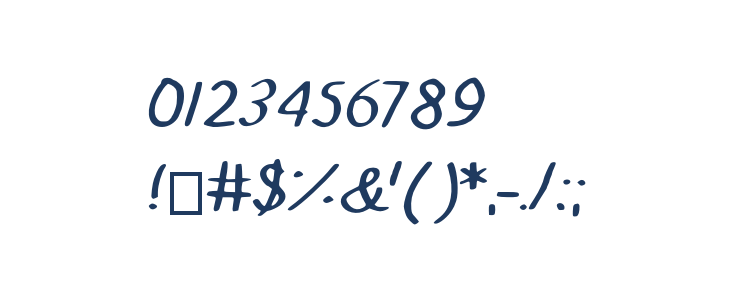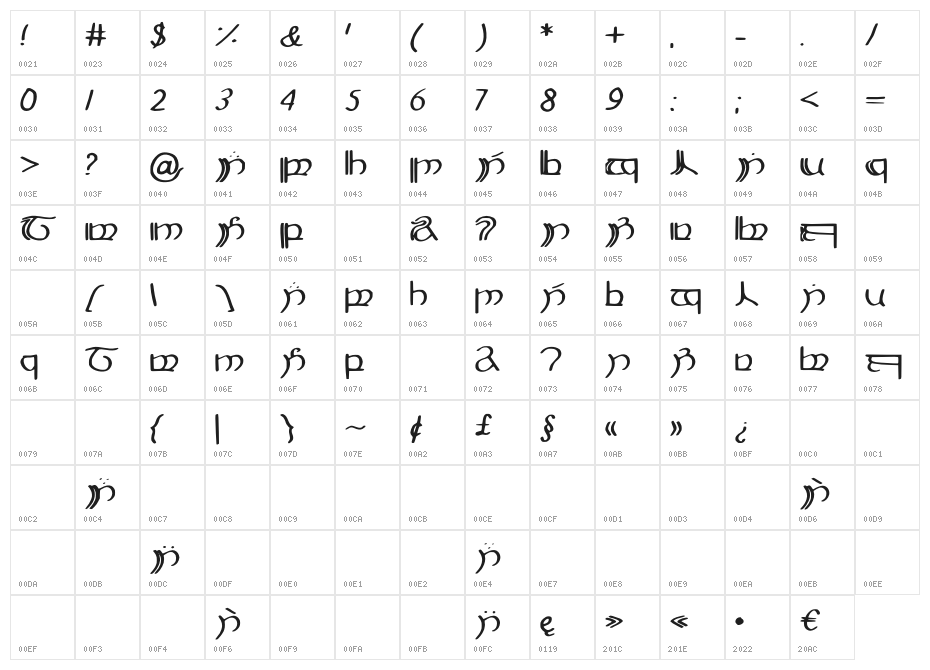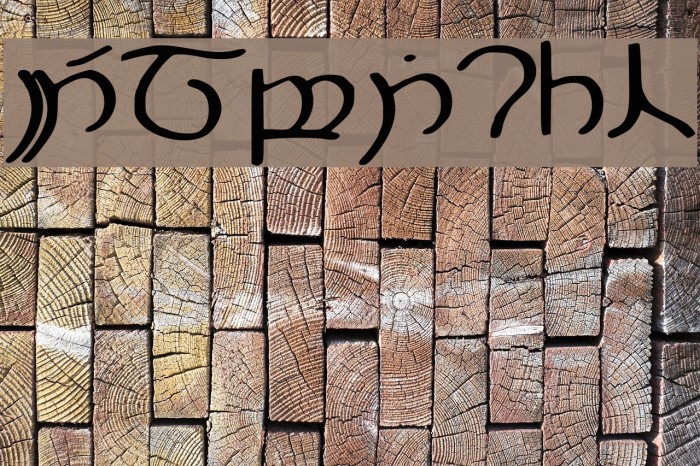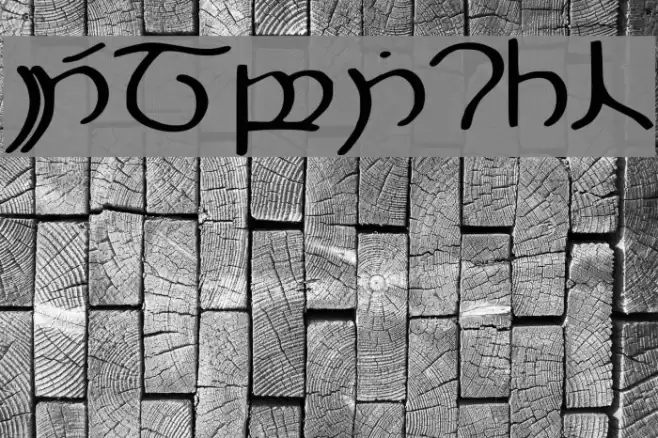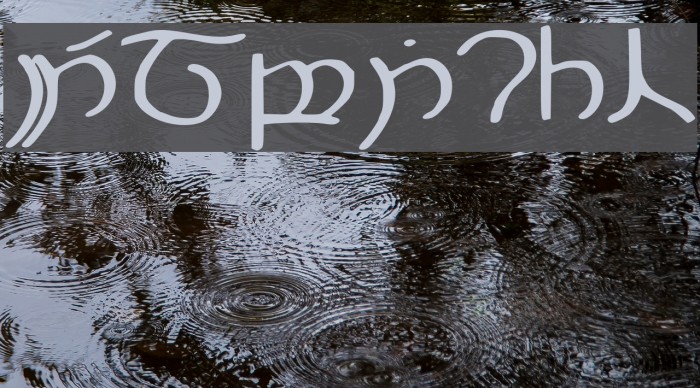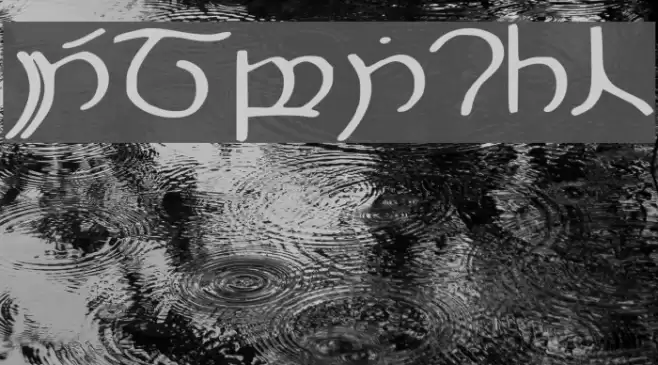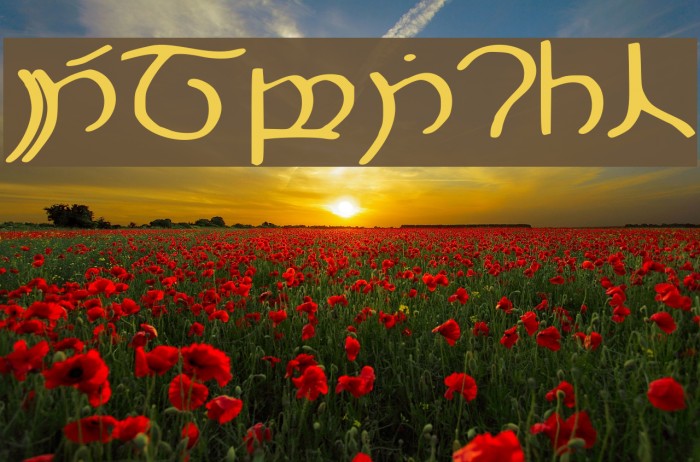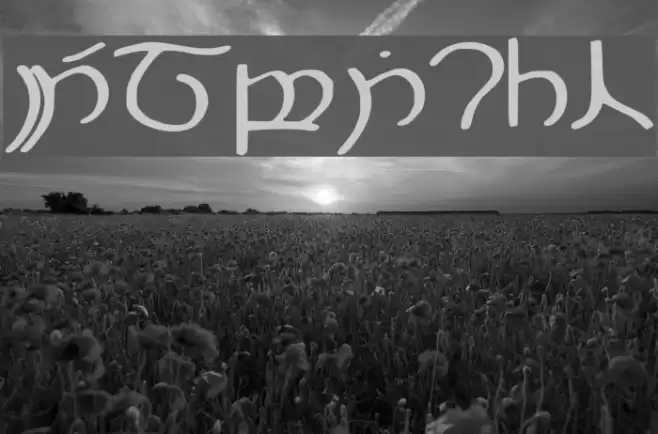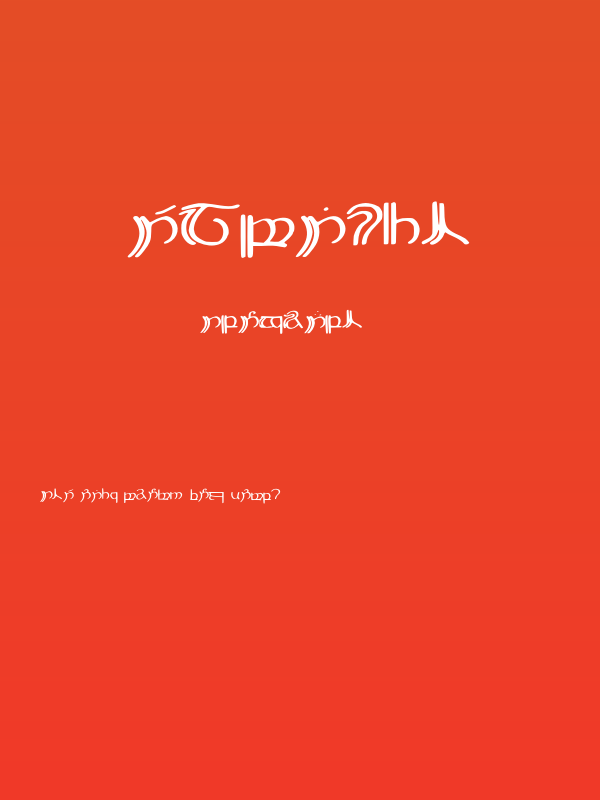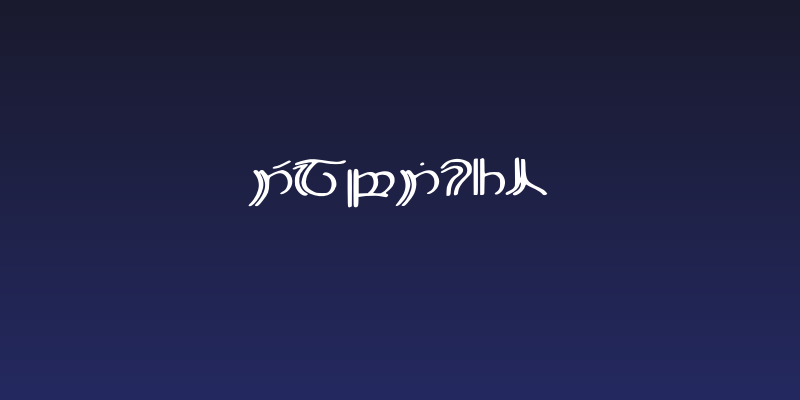
Elbisch Font
Elbisch Description
This font is inspired by the elegant and flowing script often associated with fantasy and mythical themes. It features intricate, elongated characters with a distinct, ornamental style that evokes a sense of ancient and mystical writing. The characters are highly stylized, with unique curves and flourishes that give each letter a distinct personality. The numbers and special characters maintain the same decorative quality, ensuring a cohesive look across all text elements. This font is perfect for projects that require a touch of fantasy or a connection to mythical worlds.
| Overall Style | Fantasy, Mythical, Decorative |
| Proposed Projects | Ideal for fantasy book covers, game titles, themed event invitations, and decorative posters. |